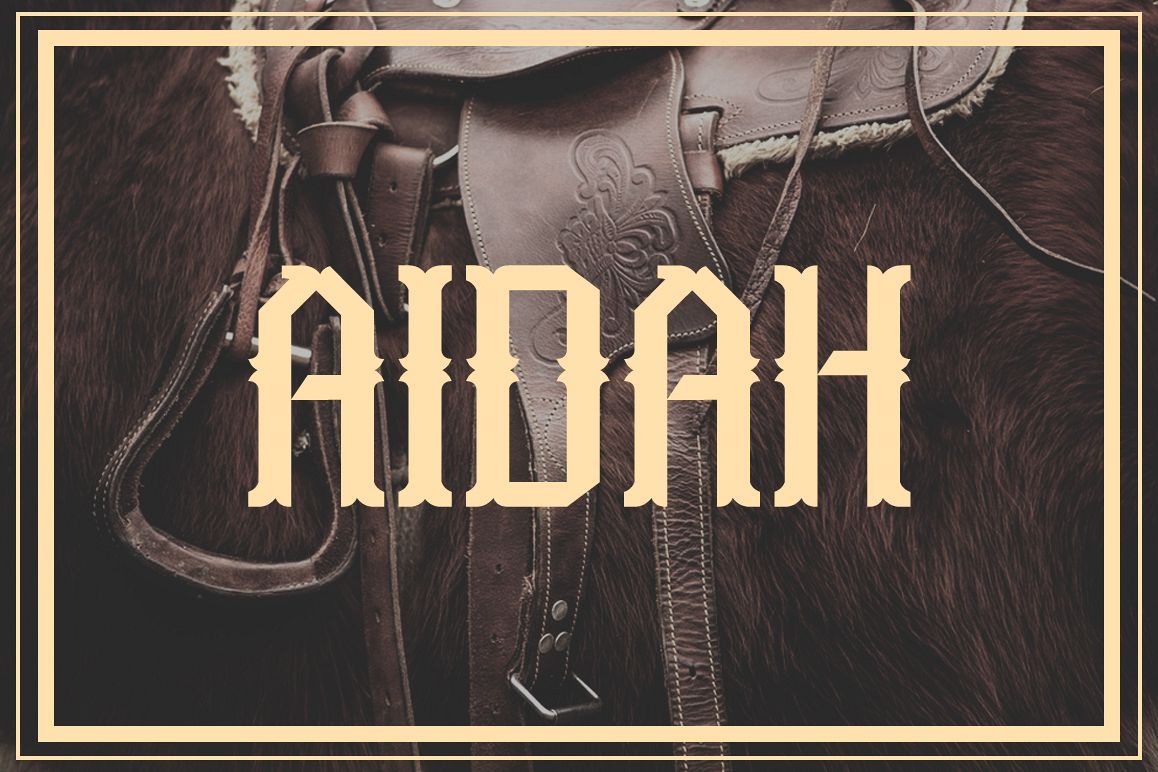
Aidah Typeface
Presenting for you "Aidah Typeface", an experimental typeface which having 3 styles included. Look good for your poster, flyer, your logo, your quotes, vintage design, or etc. Typeface featured :
Aidah Typeface